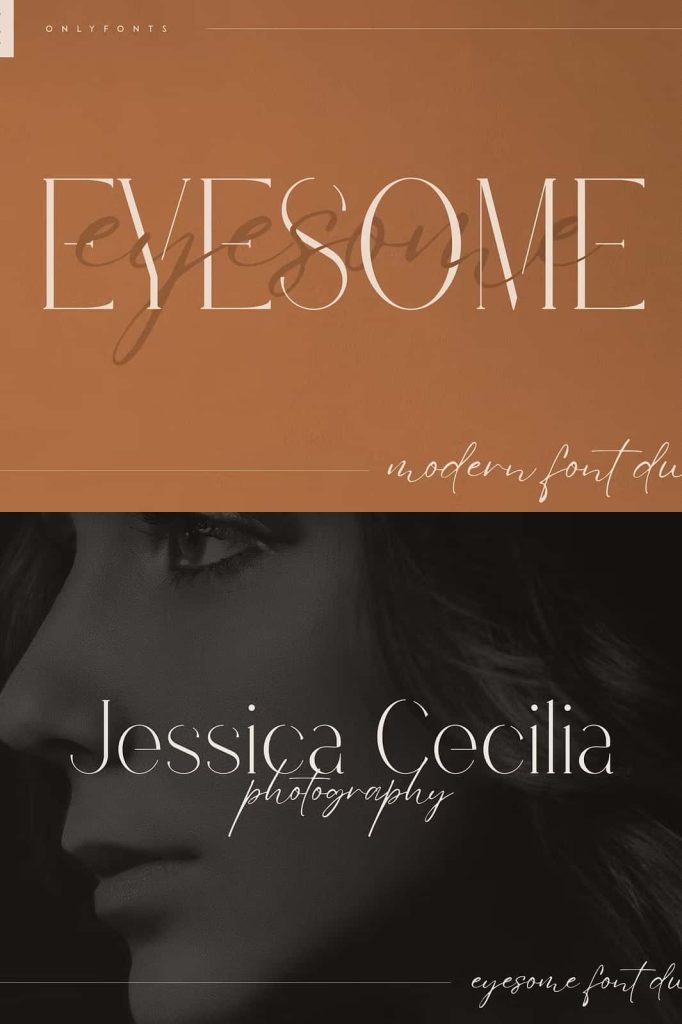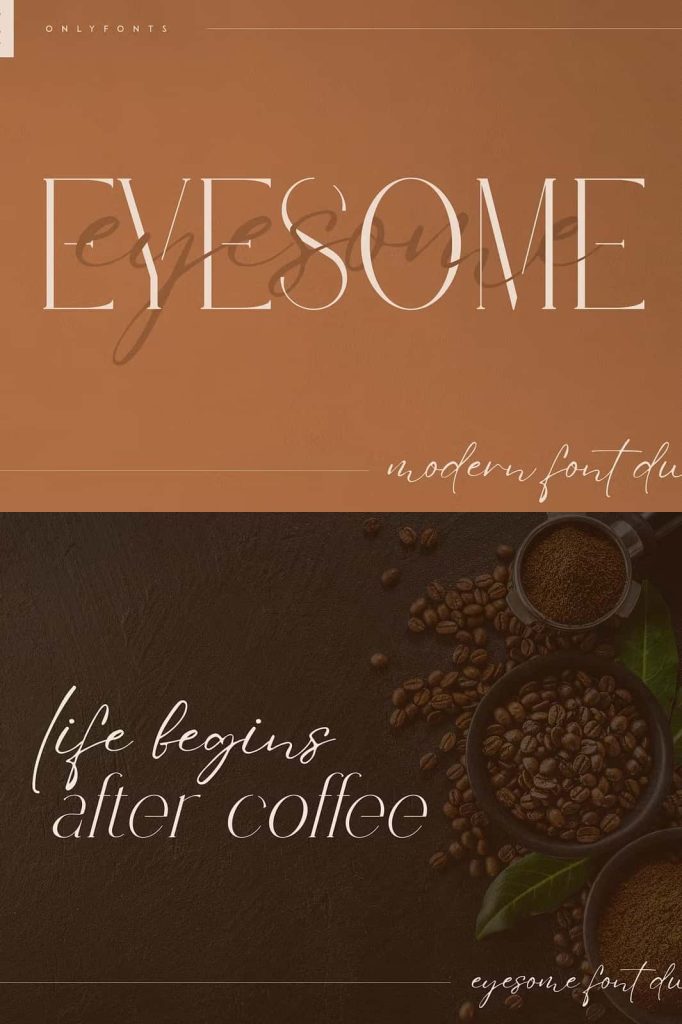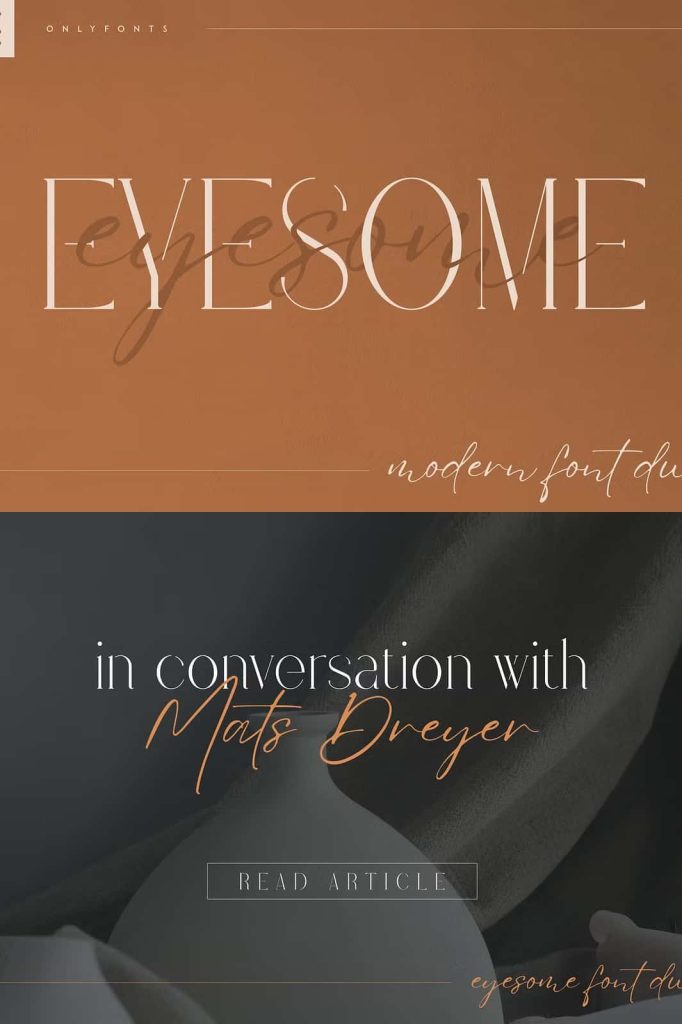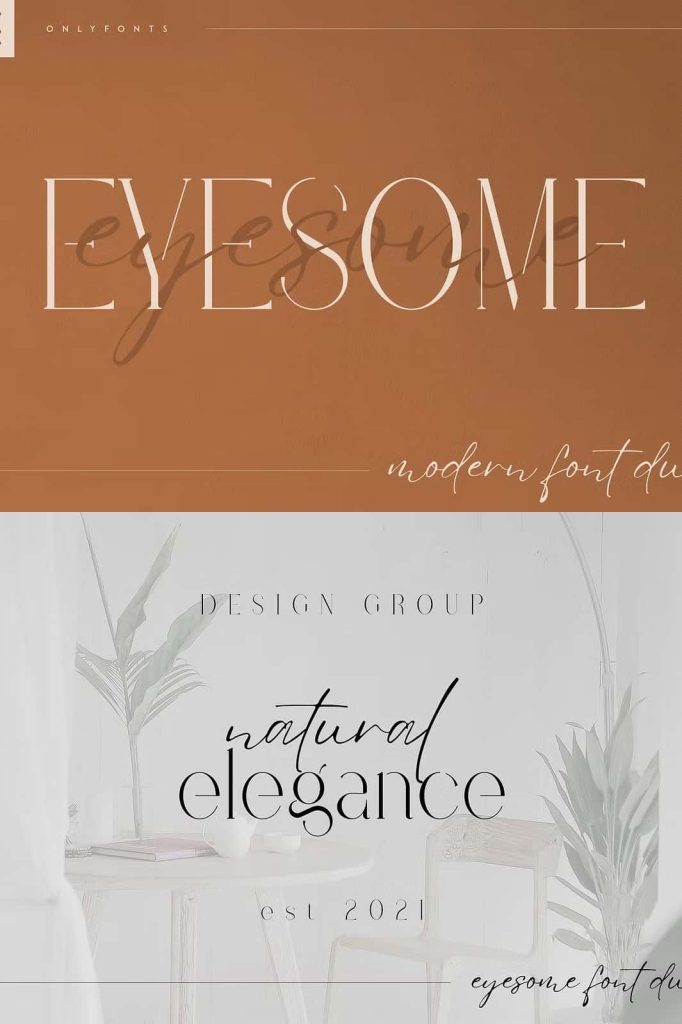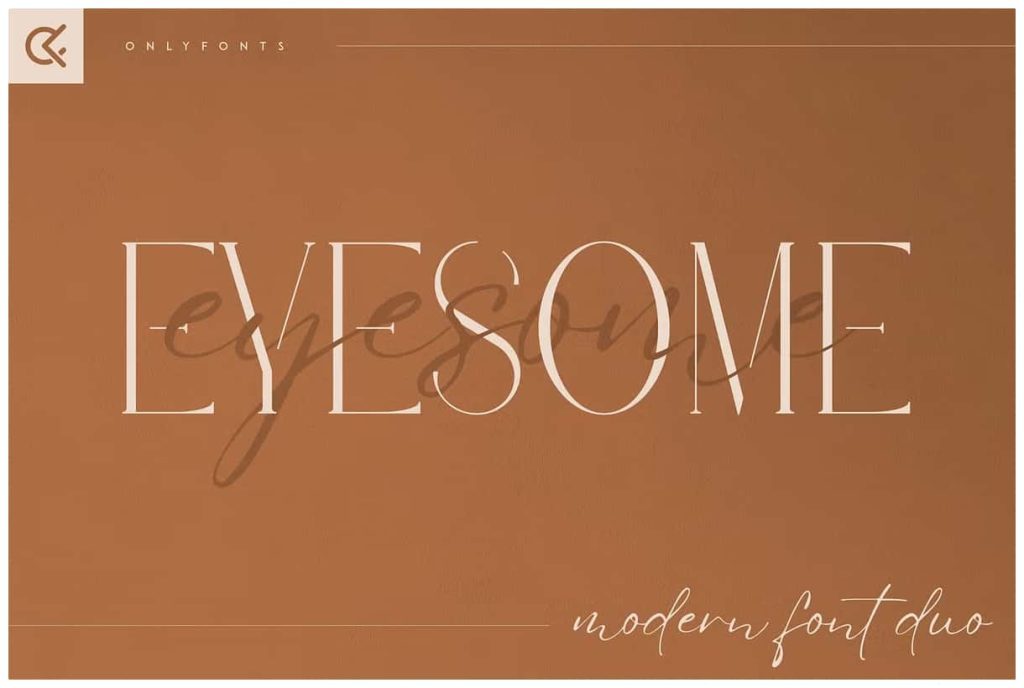
Eyesome – Modern Font Duo
Eyesome is elegant and organic typeface with multilingual support. It’s a very versatile font that works great in large and small sizes.